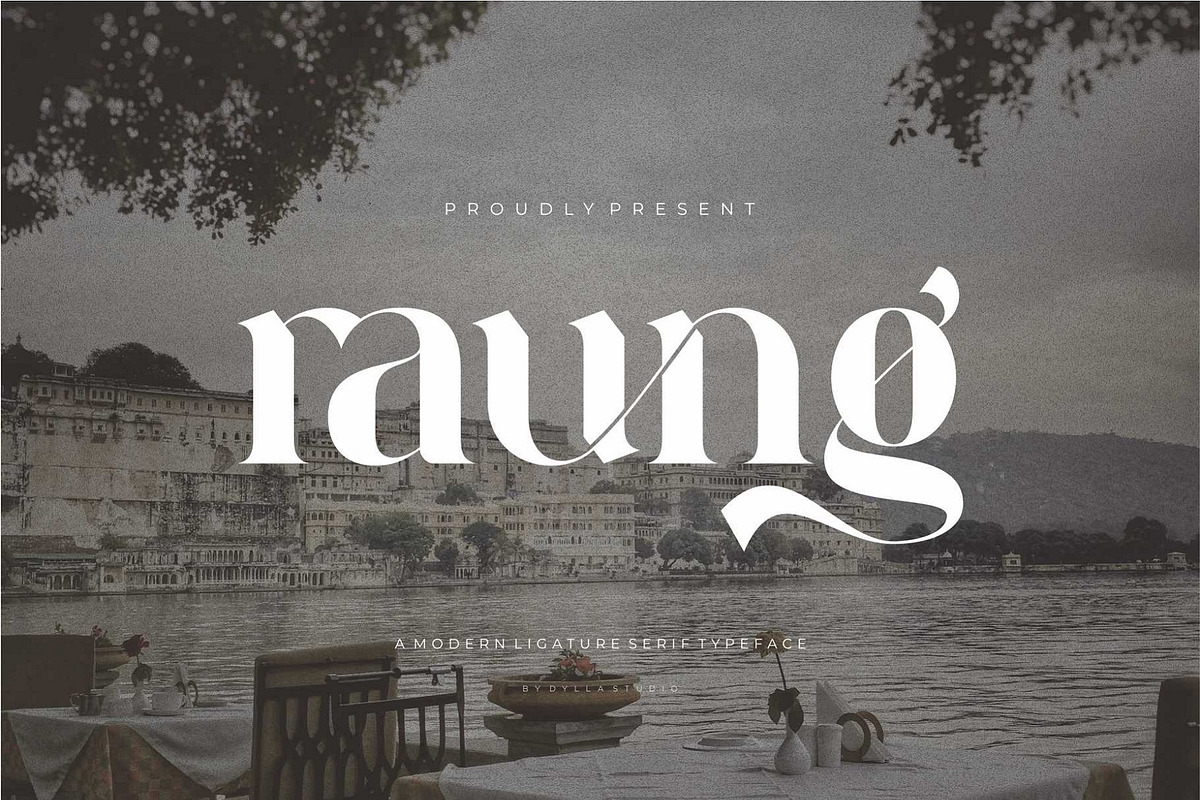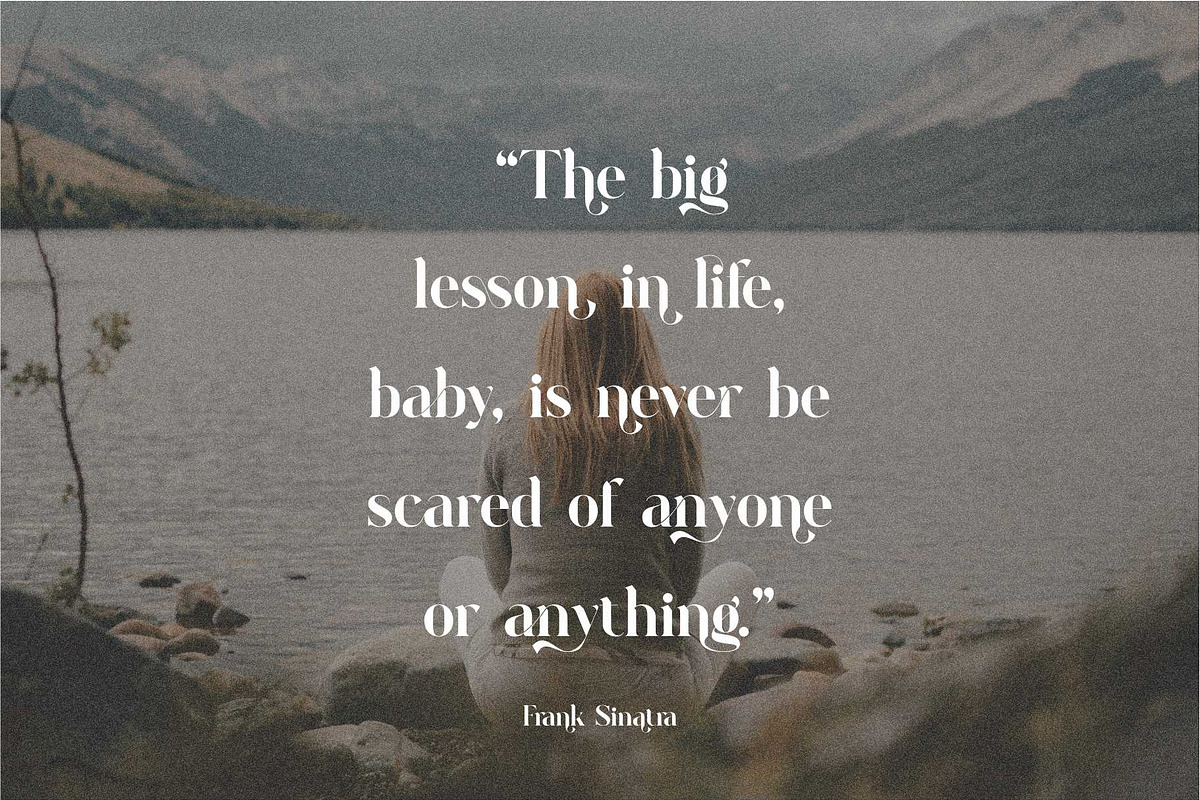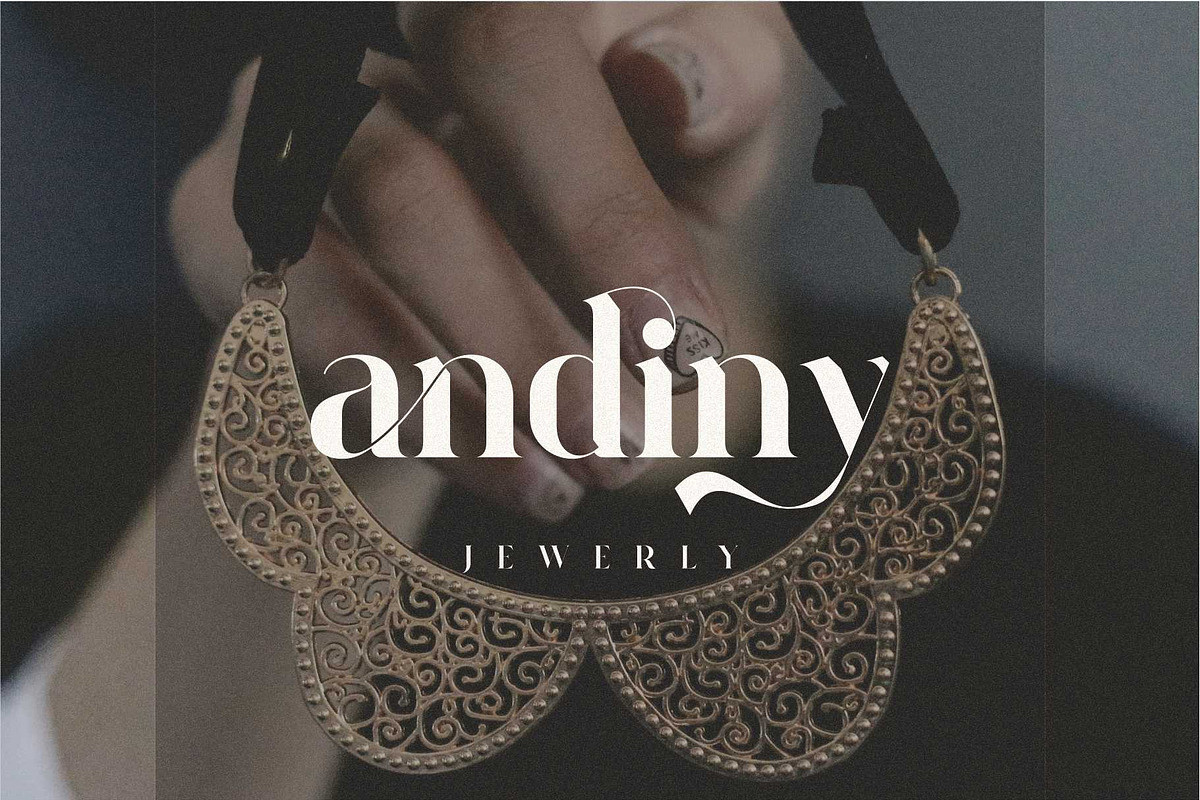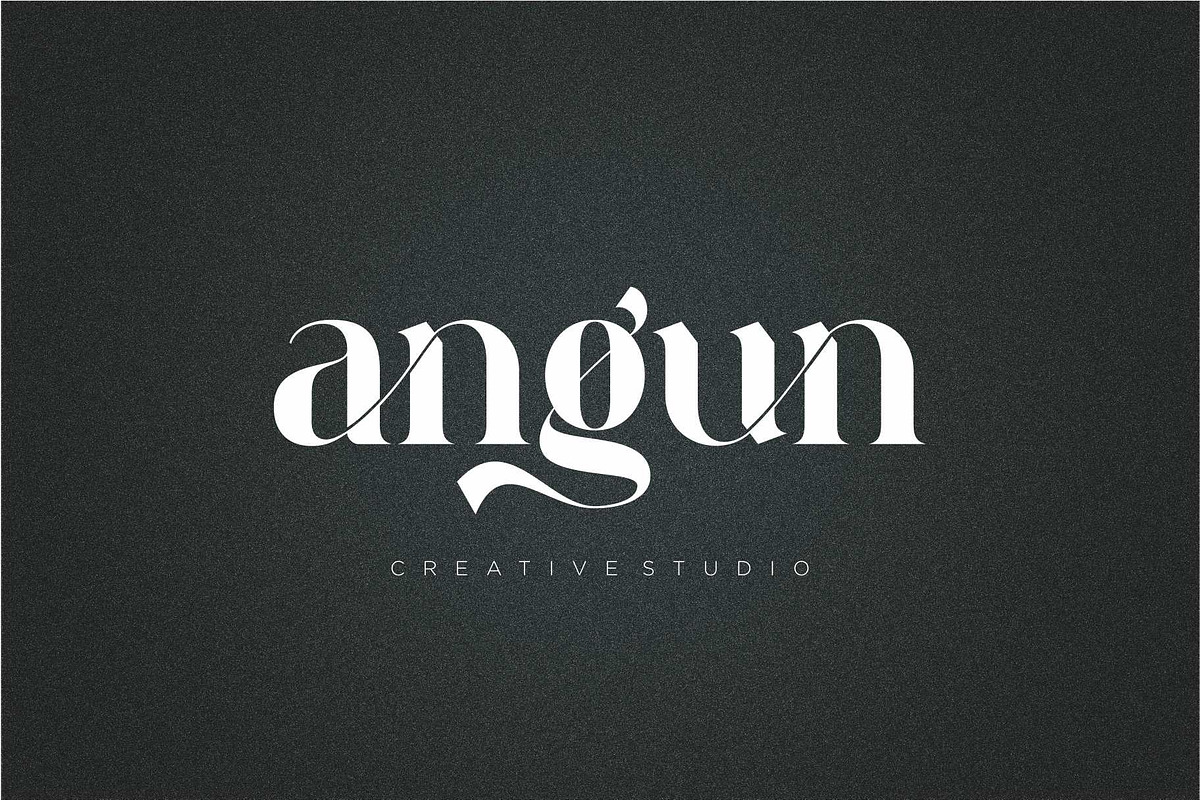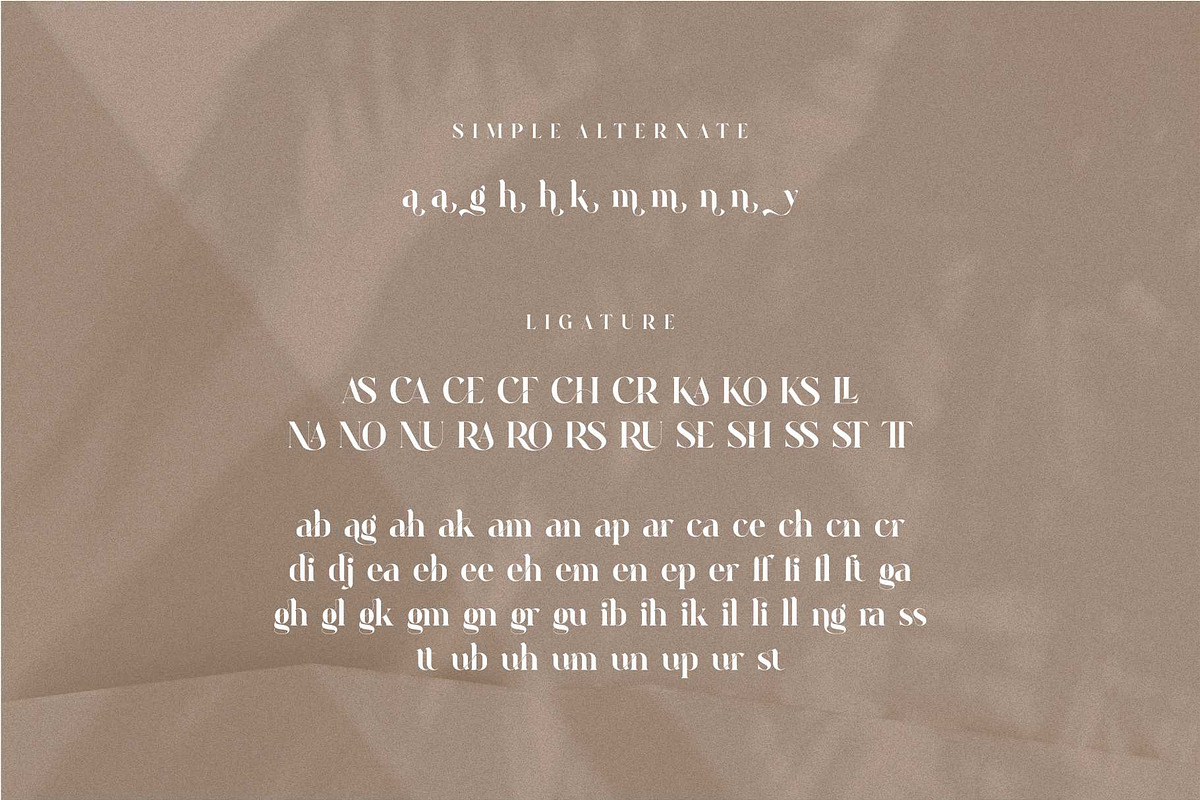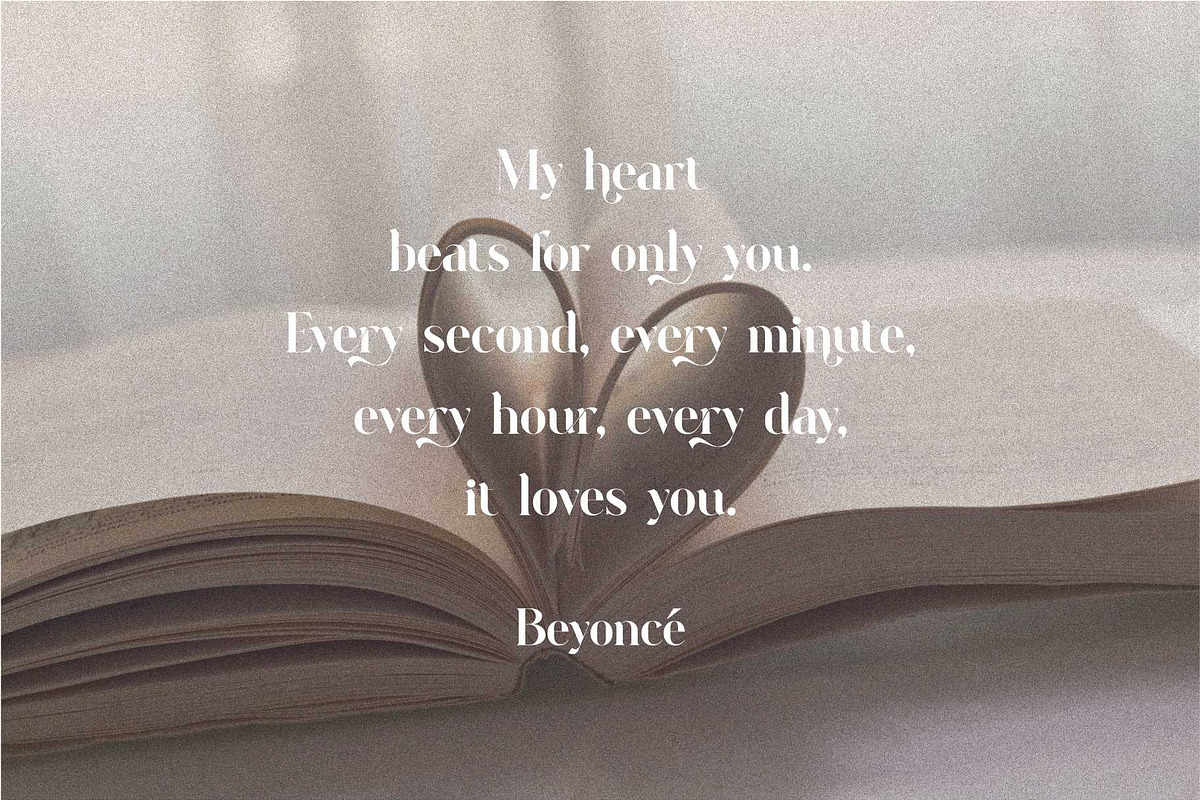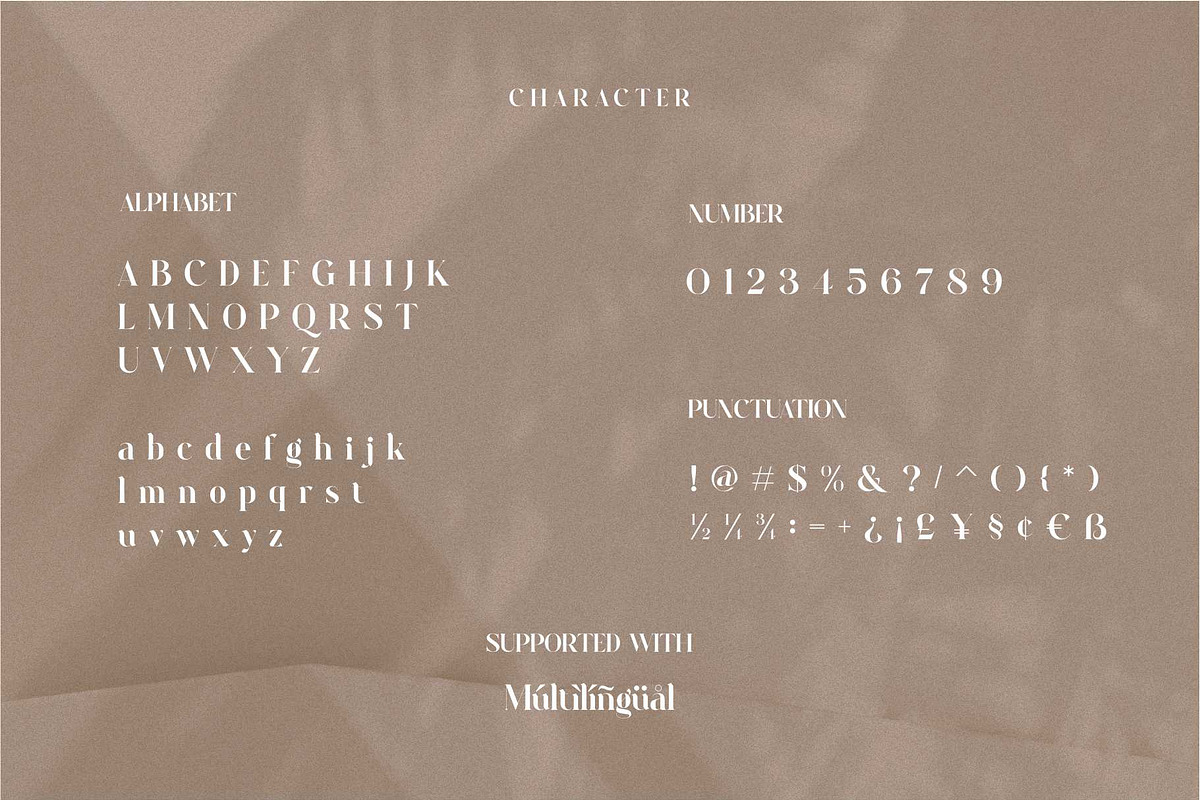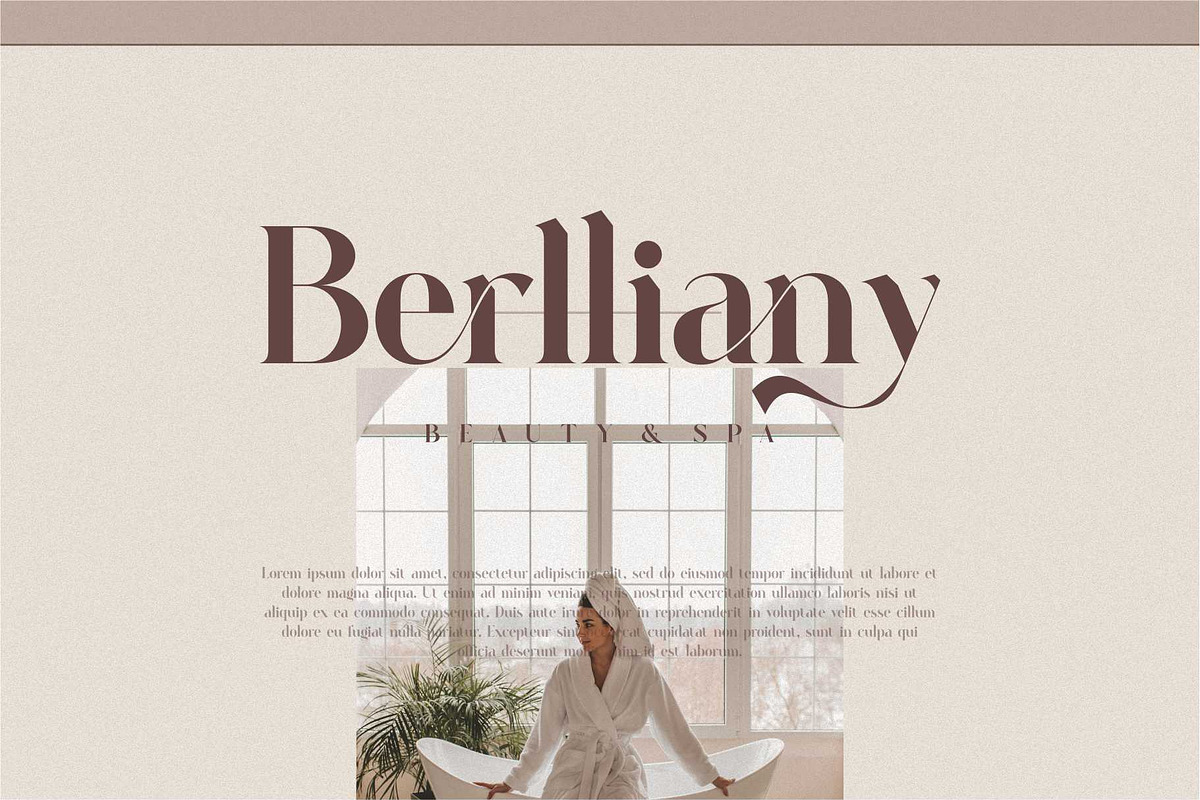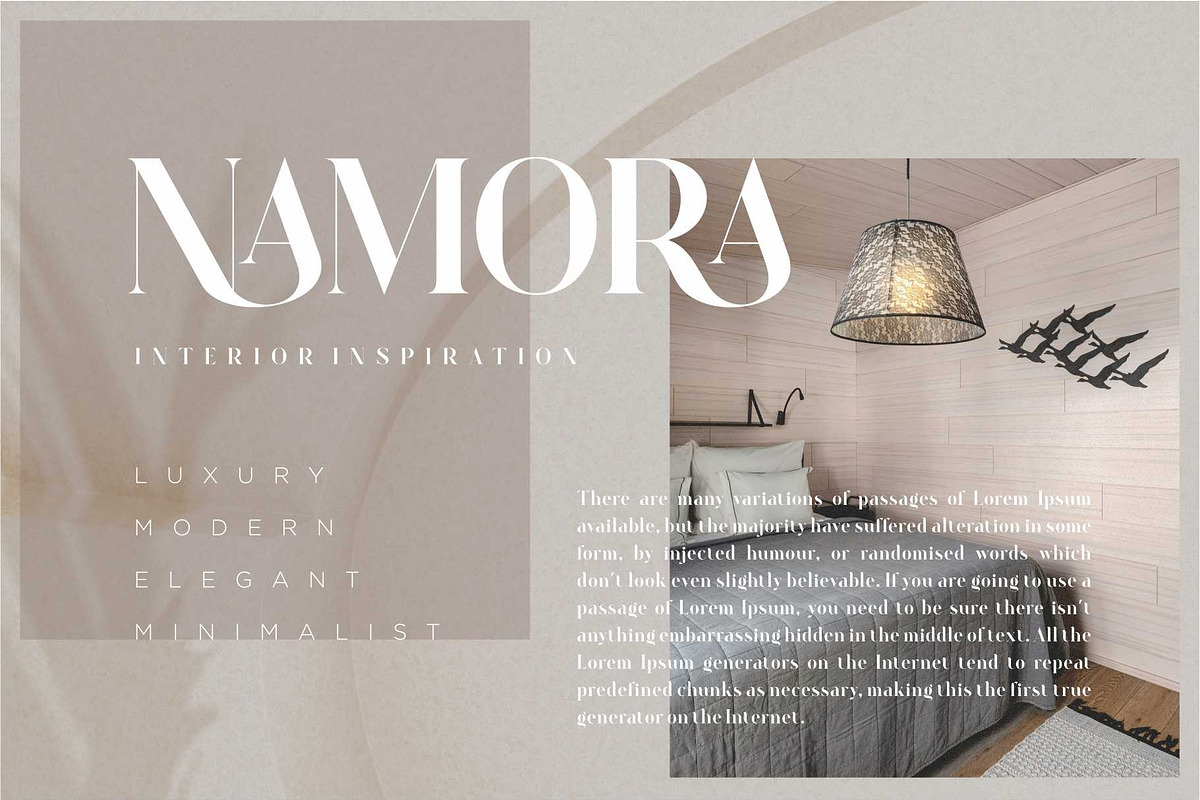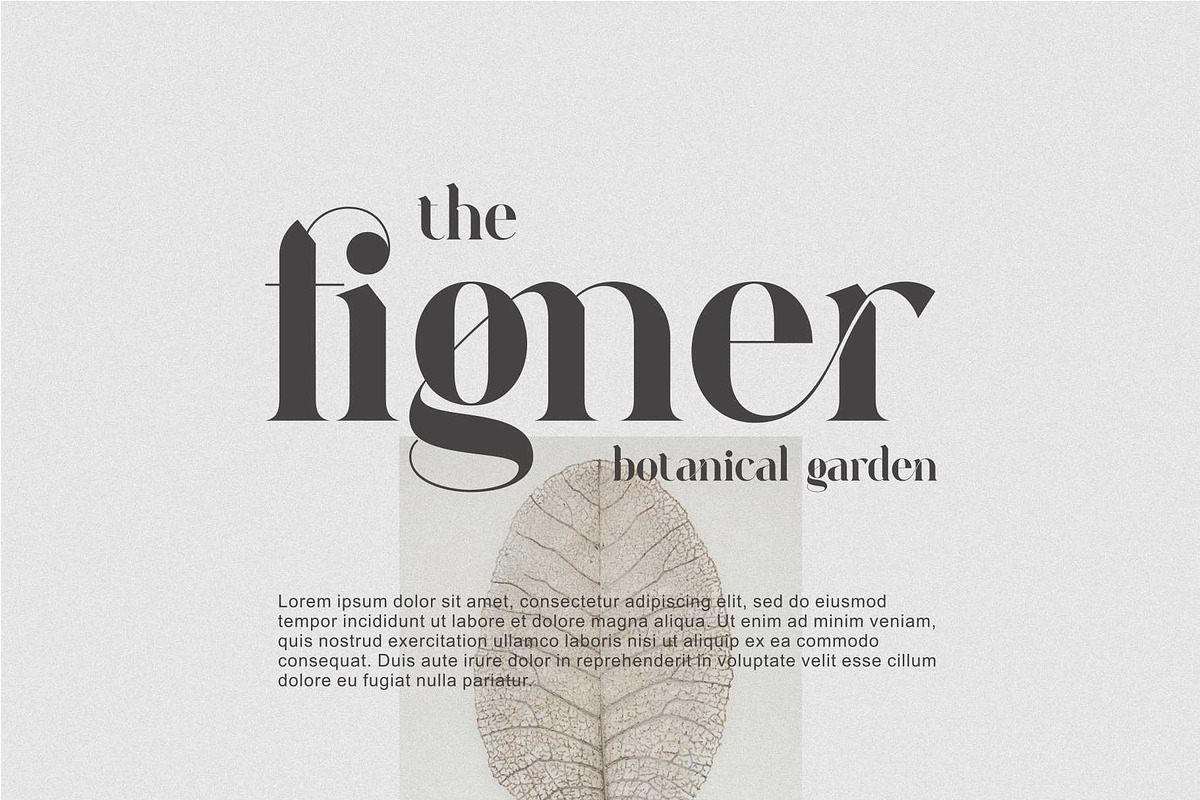
Raung Modern Ligature Serif
Raung ModernLigature Serif Typeface Font inspired by the famous minimalist logo perfect for the purposes of designing templates, brochures, videos, advertising branding, logos, invitation, layout design, elegant crafting, beauty design and more.